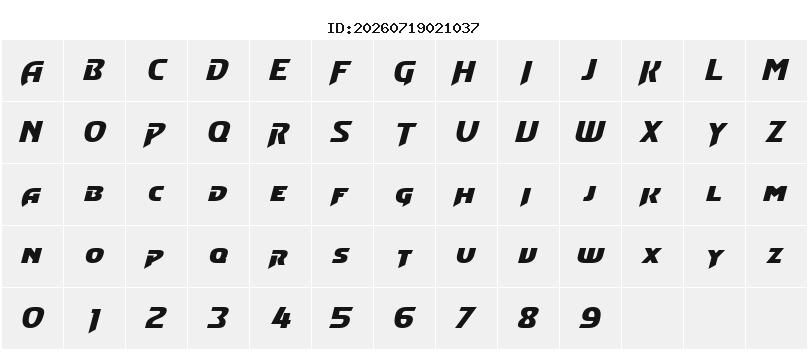
Convoy Preview
• Font Name: Convoy
• Font ID: Convoy Italic:Version 1.00
• Full Font Name: Convoy Italic
• Version: Version 1.00 April 25, 2013, initial release
• PostScript Name: Convoy-Italic
• Designer: Neale Davidson
About Convoy.ttf
Convoy.ttf is a modern, elegant sans-serif font designed for ultimate readability and visual harmony. Perfect for branding, headlines, web design, and print materials.